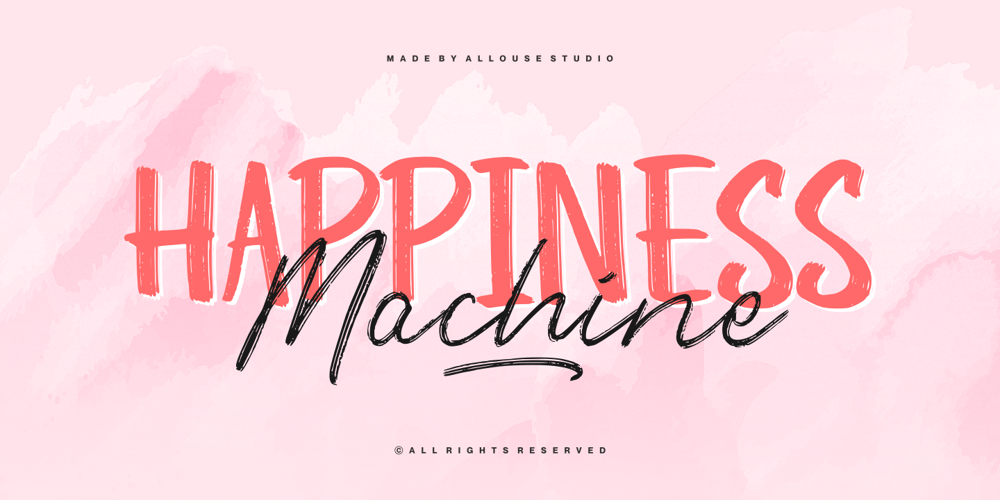
Happiness Machine
Happiness Machine font
Happiness Machine Font Family was designed by Fachrizal Yusuf and published by Allouse Studio. Happiness Machine contains 2 styles and family package options. Proudly Presenting, Happiness Machine a cool Font Duo.Happiness Machine is perfect for any titles, logo, product packaging, branding project, megazine, social media, wedding, or just used to express words above the background.Happiness Machine come with alternates, underline style and also Multi-Lingual Support.We highly recommend using a program that supports OpenType features and Glyphs panels like many of Adobe apps and Corel Draw, so you can see and access all Glyph variations.Enjoy the font, feel free to comment or feedback, send me PM or email. Thank You!